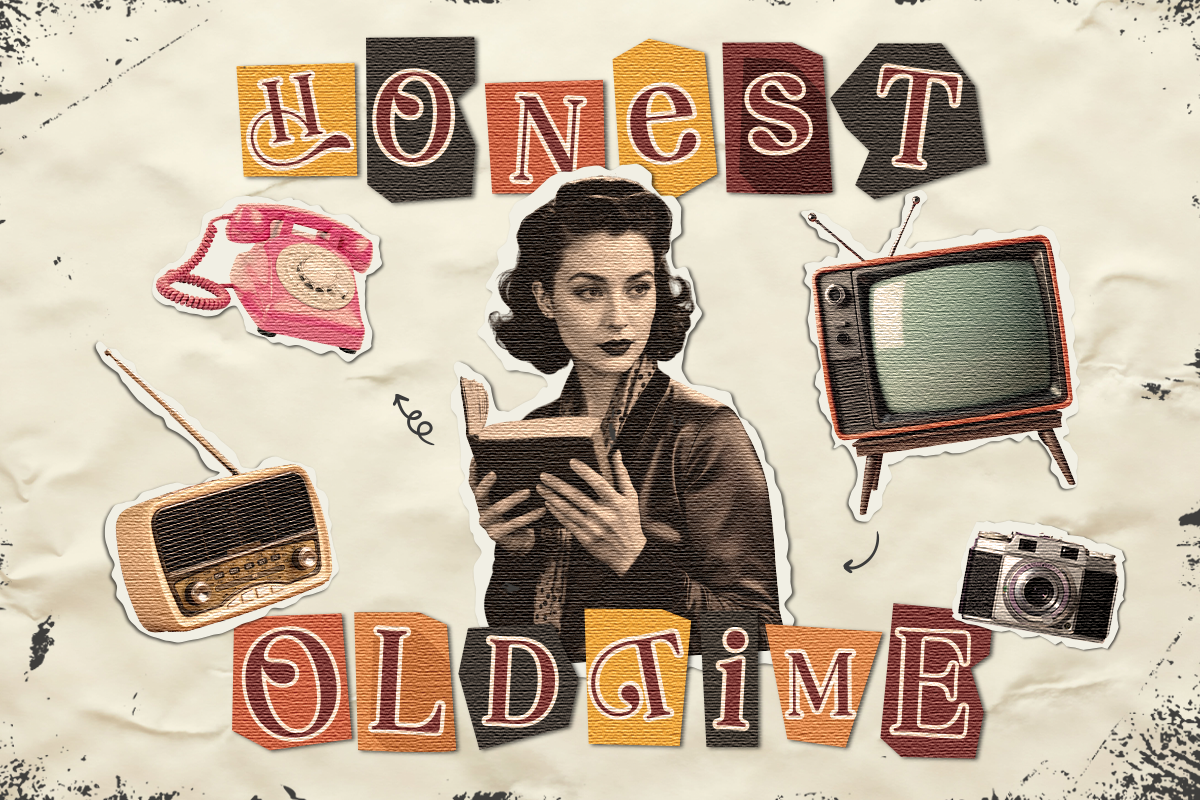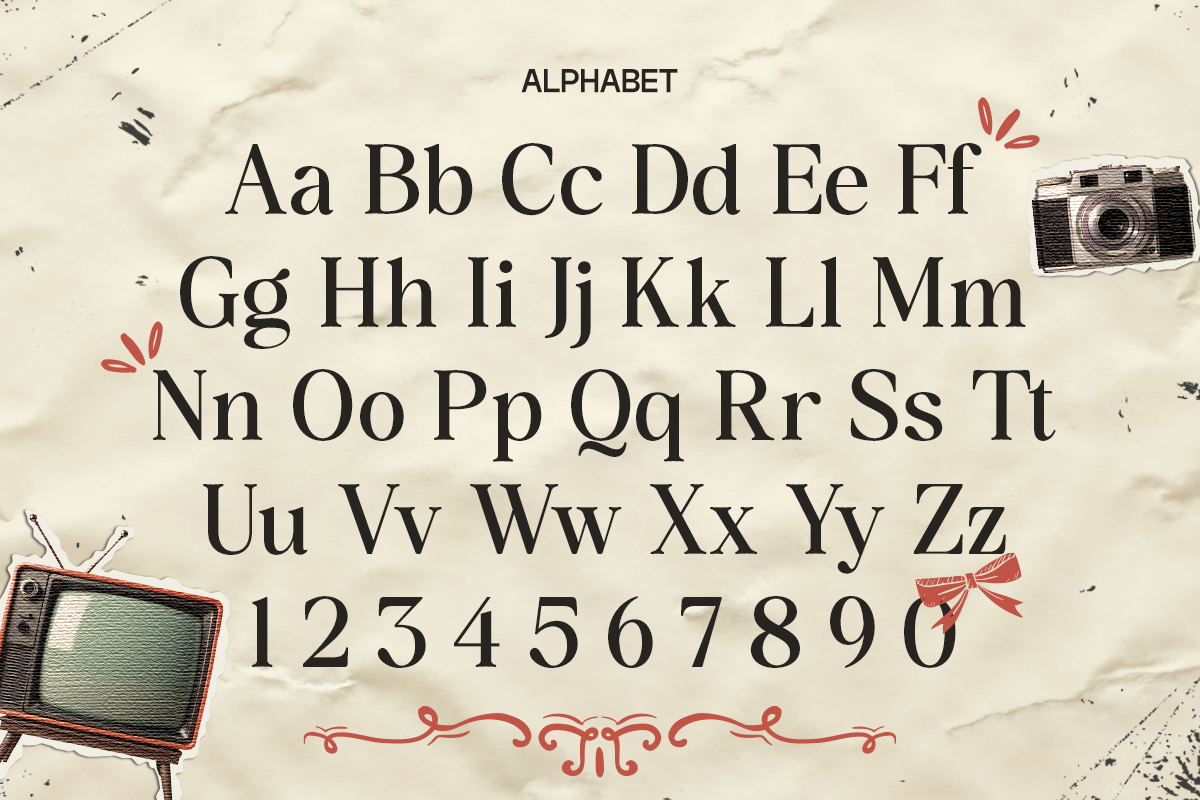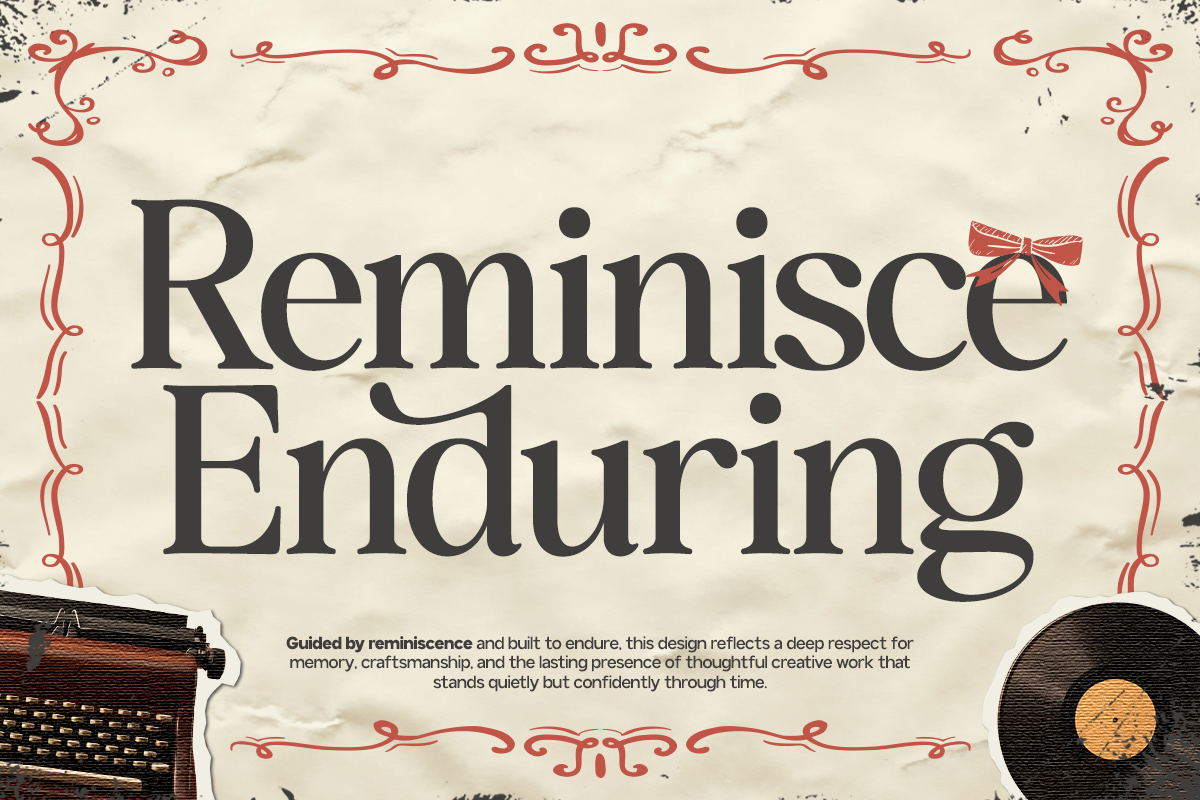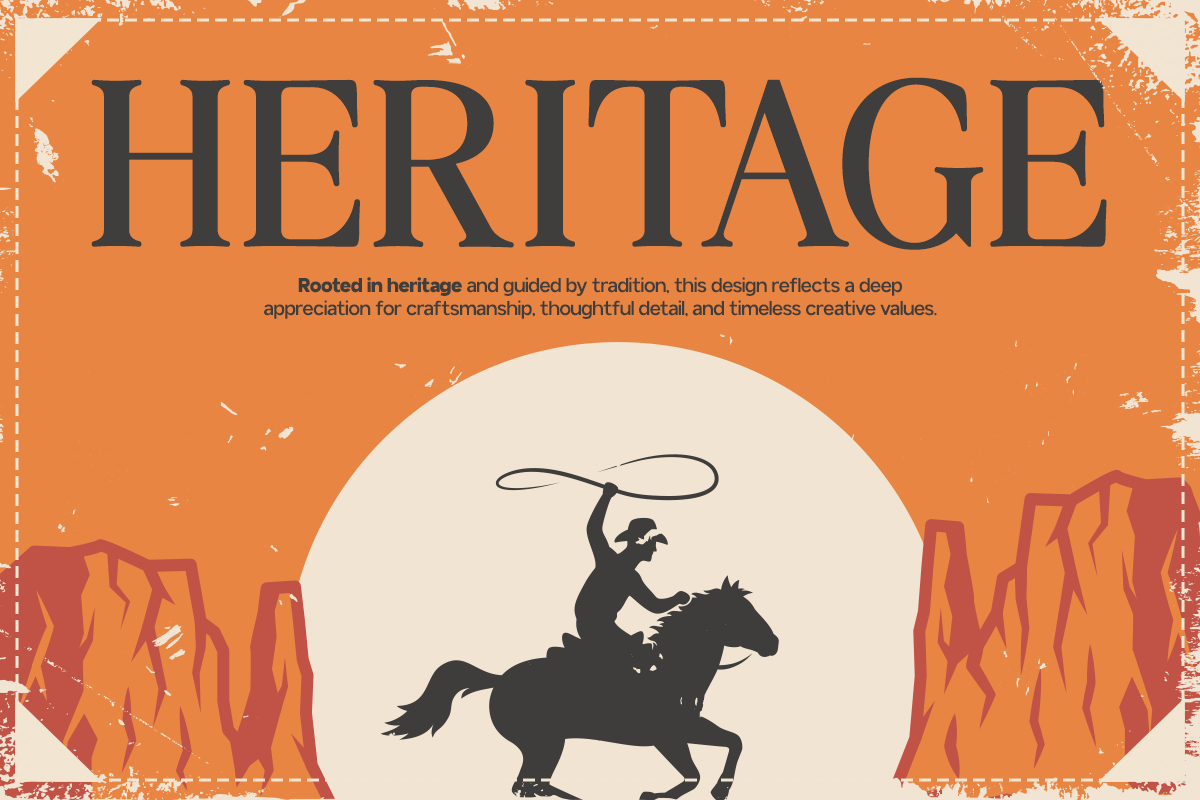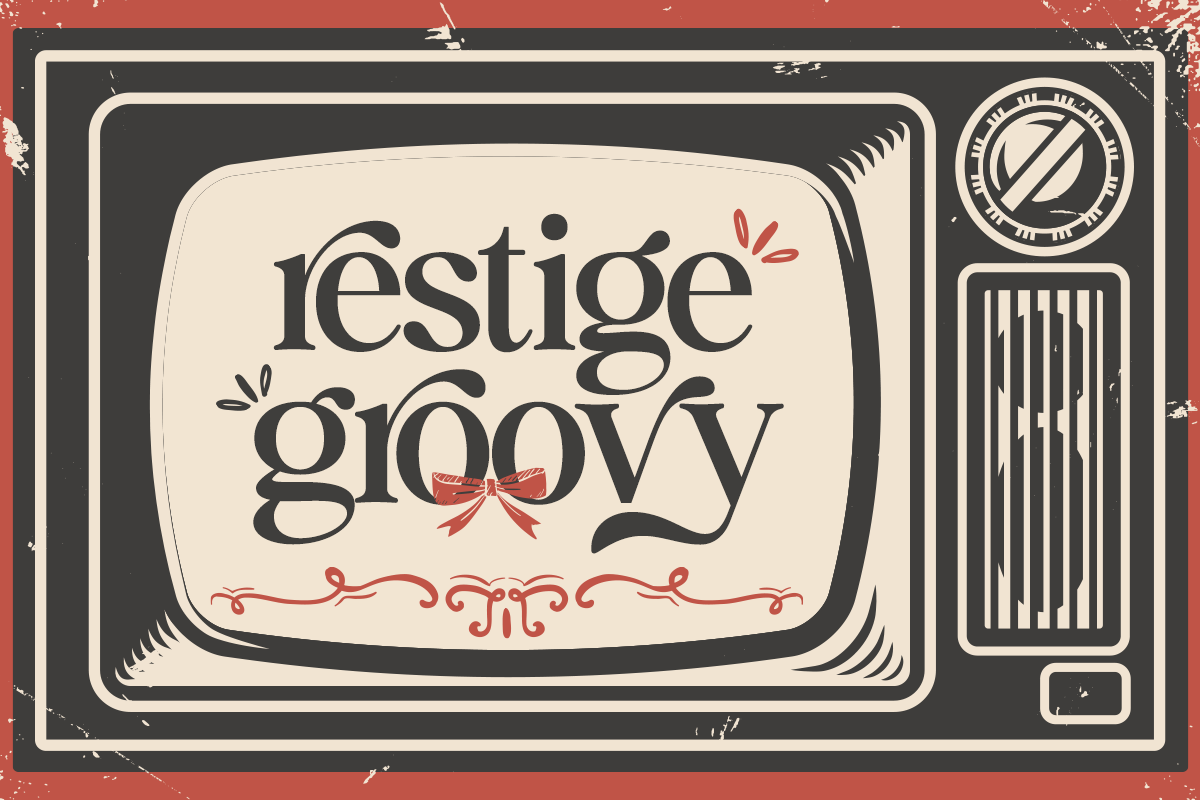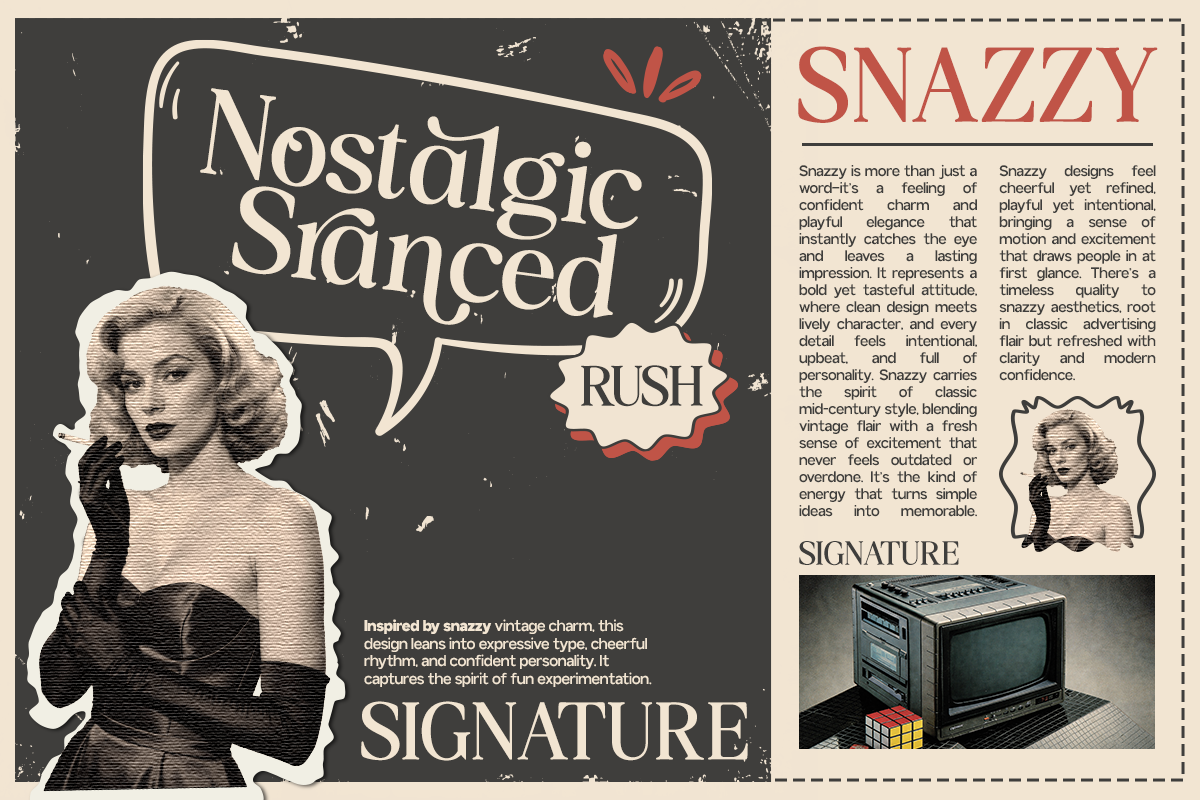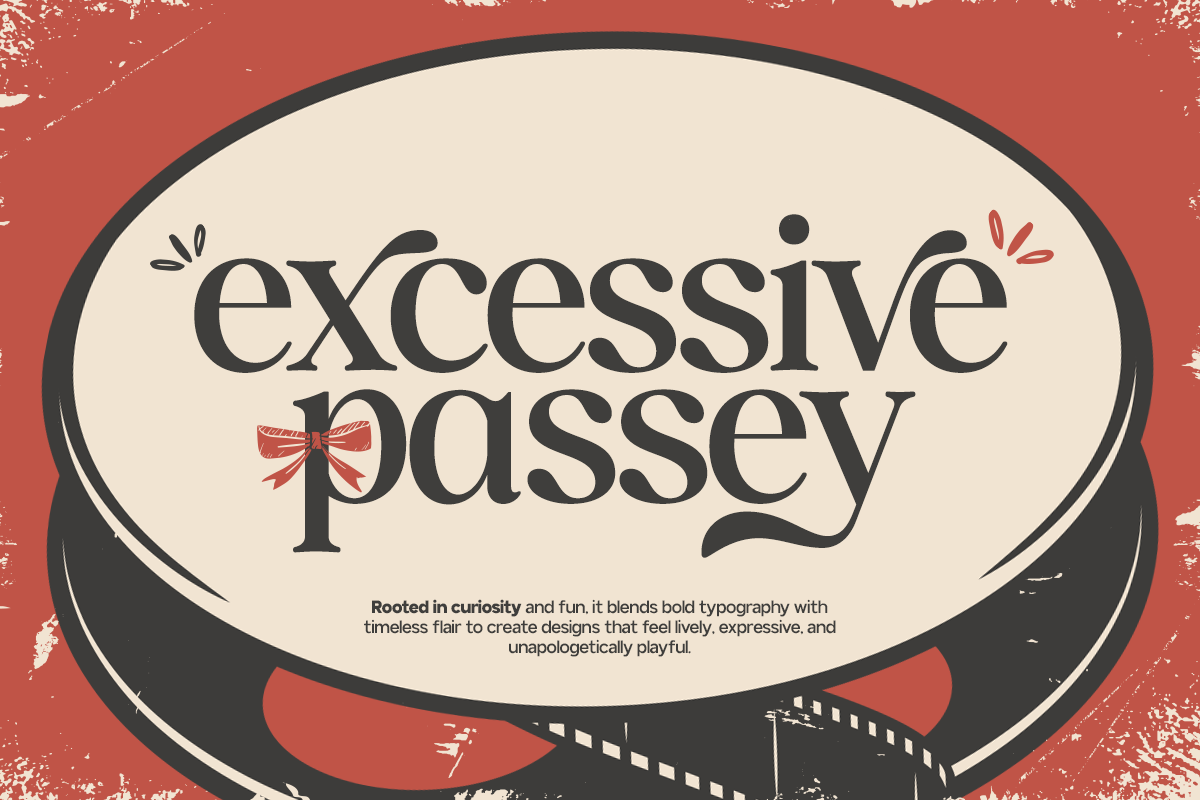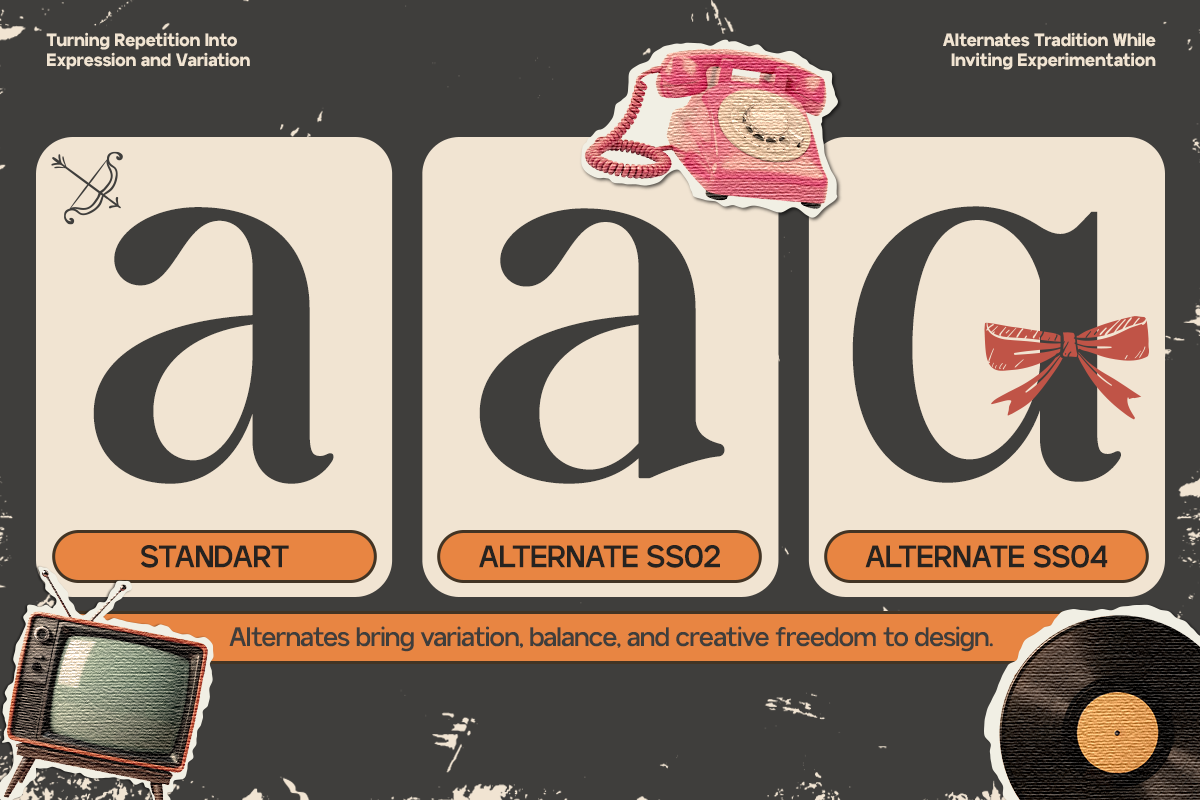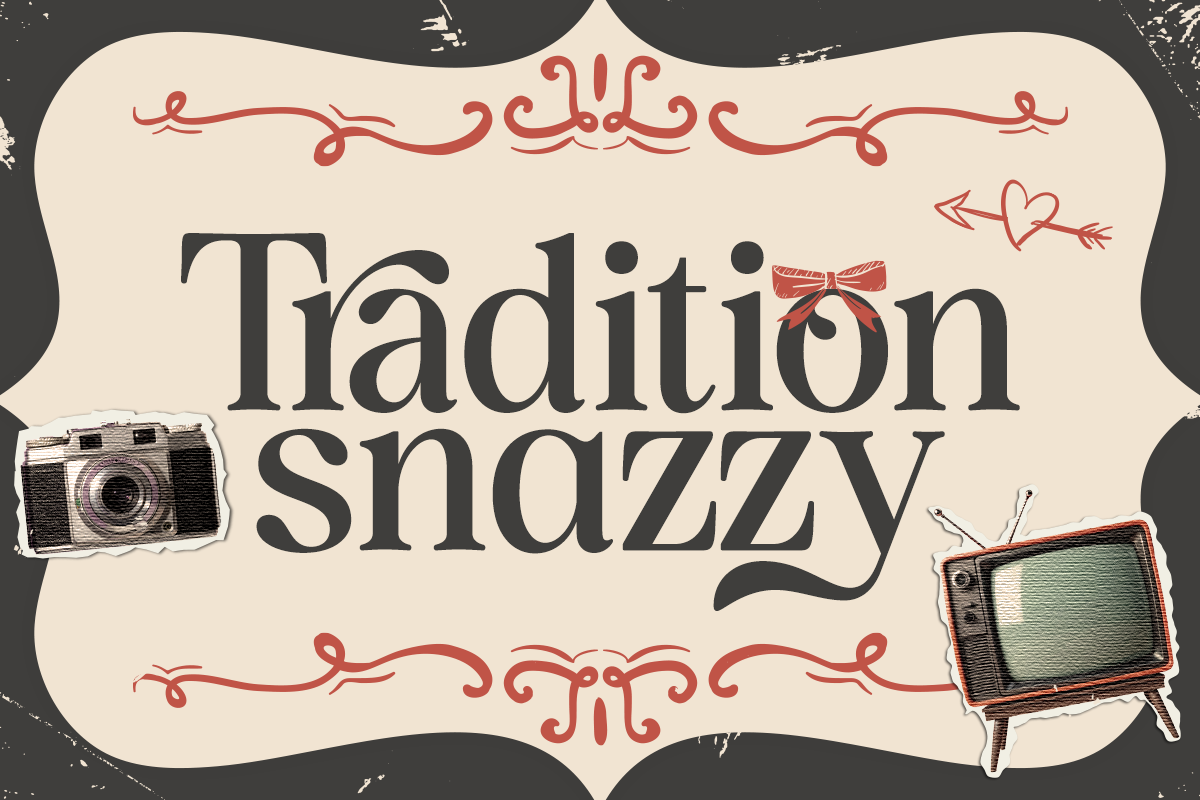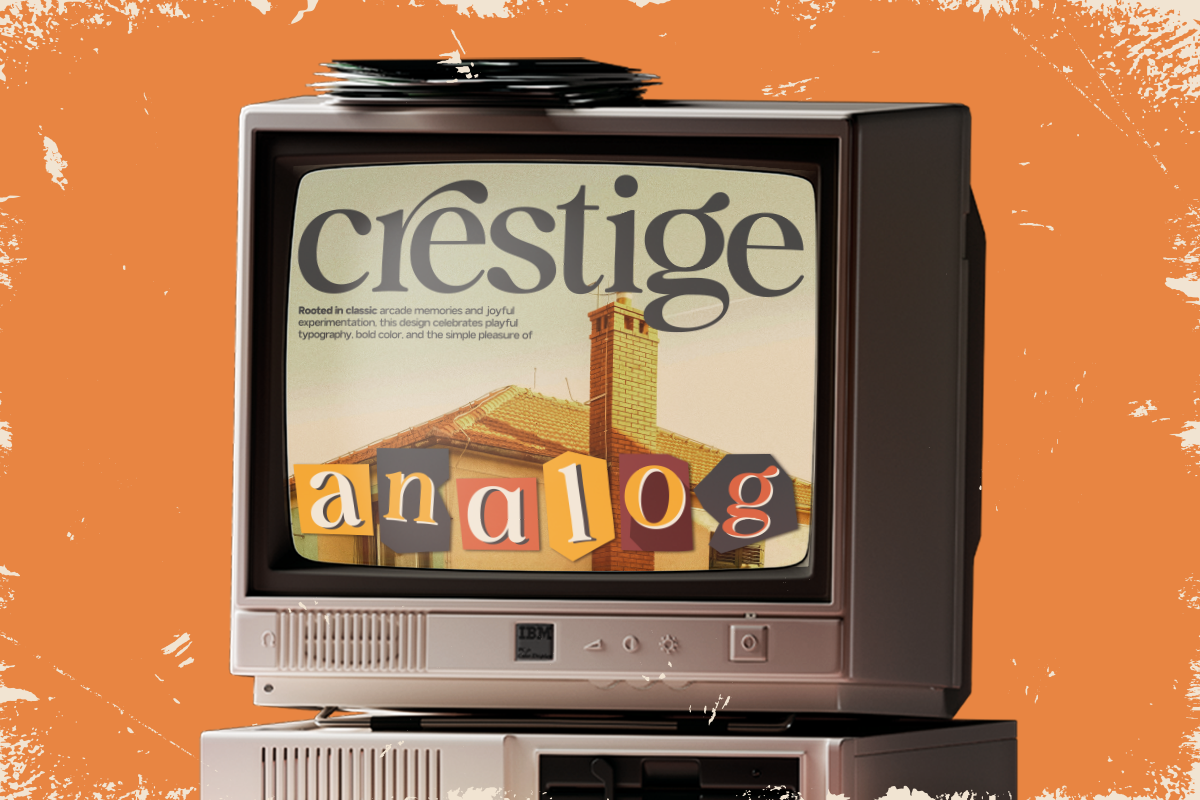
GC Rain Founds - Elegant Retro Serif
GC Rain Founds – Elegant Retro Serif is a sophisticated serif typeface inspired by timeless retro aesthetics and refined classic typography. Designed with graceful curves, distinctive serifs, and balanced contrast, Rain Founds delivers an elegant yet nostalgic character that feels both vintage and relevant in modern design.
Built with carefully crafted proportions and expressive details, GC Rain Founds transitions beautifully from delicate editorial settings to bold headline compositions. Its retro charm adds personality and warmth, while its structured construction ensures clarity, readability, and visual harmony across print and digital applications.
Perfect for branding, fashion editorials, wedding designs, boutique packaging, lifestyle magazines, and artistic layouts, GC Rain Founds brings a sense of heritage and elegance into contemporary visual systems. Whether used for statement titles or refined body text, it offers a distinctive typographic presence with timeless appeal.
- Elegant Retro Serif Construction
- Carefully Balanced Contrast
Bring vintage sophistication, expressive charm, and refined elegance into your creative projects with GC Rain Founds – Elegant Retro Serif.